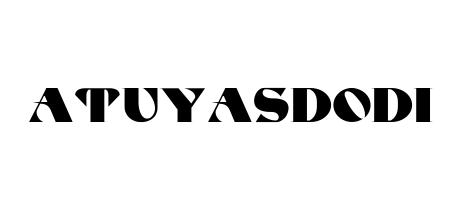
ATUYASDODI
By Chung deh Tien
ATUYASDODI: A bold, geometric sans-serif font exudes confidence and modernity. Its strong, slightly irregular letterforms create a dynamic rhythm, hinting at both classic and experimental design sensibilities. Ideal for headlines, logos, or any project demanding attention-grabbing typography. The font''s unexpected character shapes add a unique personality.